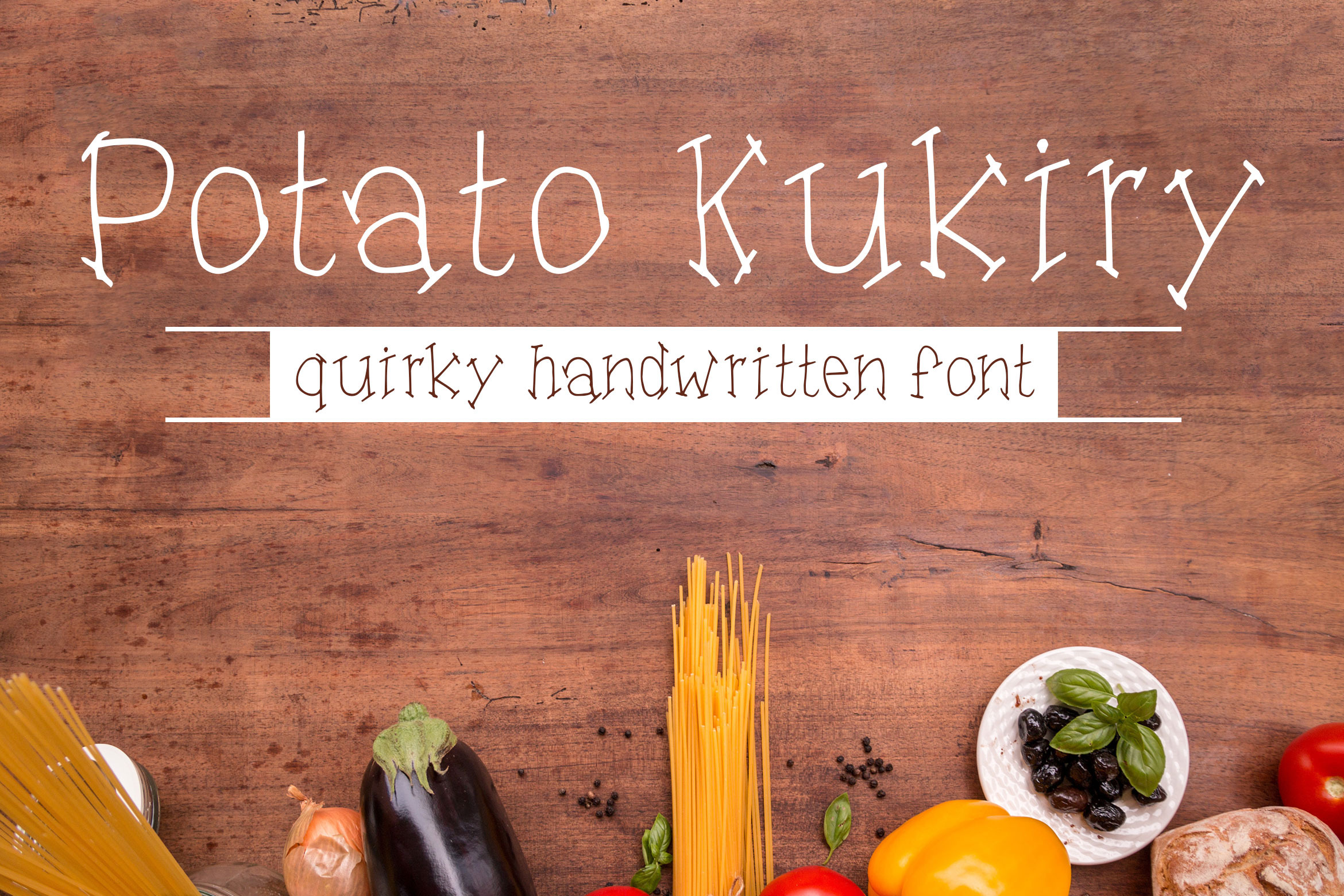
Potato Kukiry - Quirky Fun Font
Introducing the Potato Kukiry - Quirky Handwritten Fun Serif Font, Potato Kukiry perfectly fits for crafts, kids projects, banners, videos projects and more..